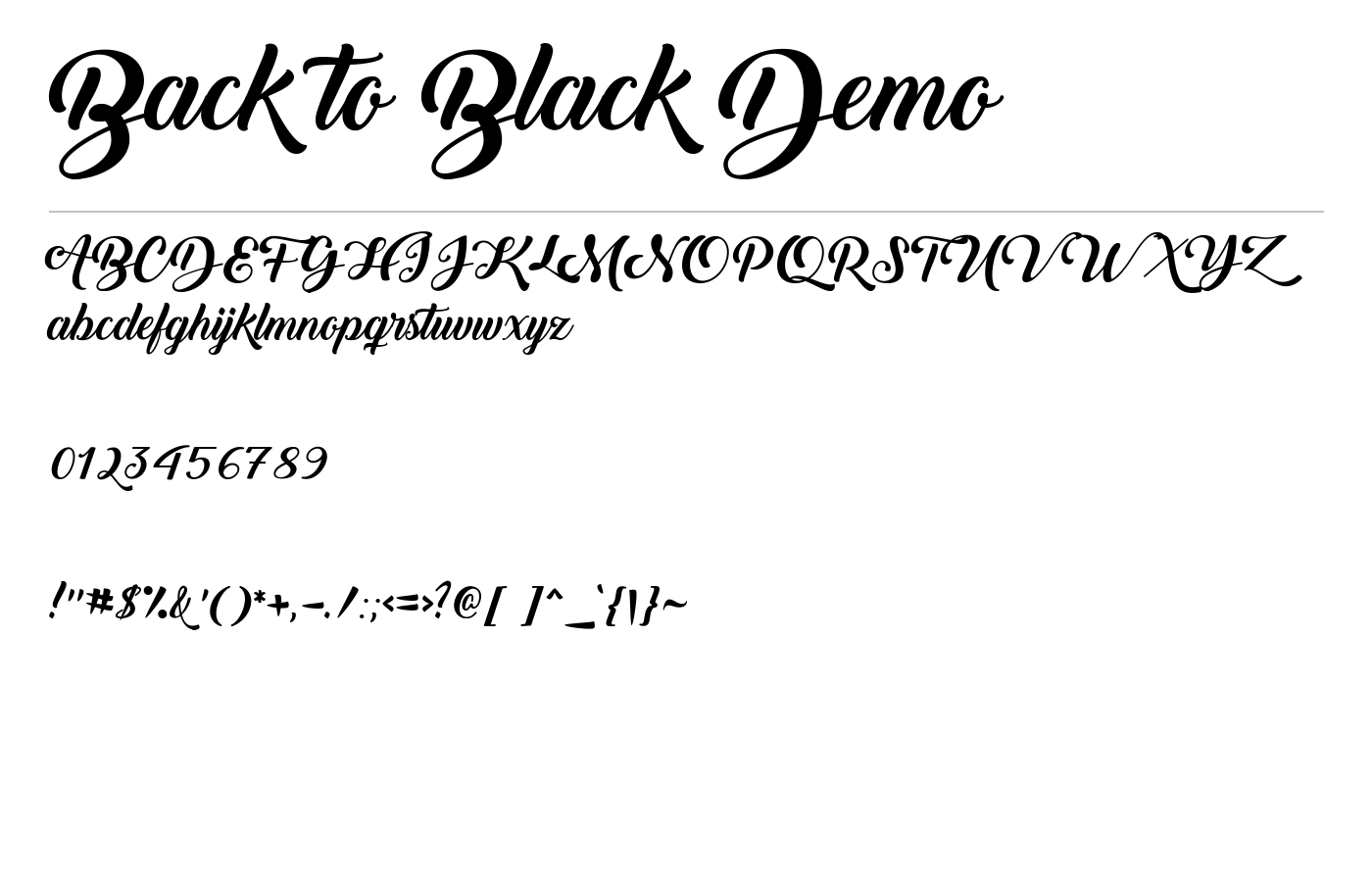
Back to Black Demo is a bold, elegant script font with smooth, flowing strokes and a lively, hand-lettered feel. Its high contrast and decorative swashes make it ideal for creating striking headlines, logos, and luxury branding that want to convey sophistication and personality. This font works best in designs where a stylish, artistic touch is needed to make an impression.
Back to Black Demo Font
About Back to Black Demo Font
| Font family | Back to Black Demo Font |
| Designer | Misti's Fonts |